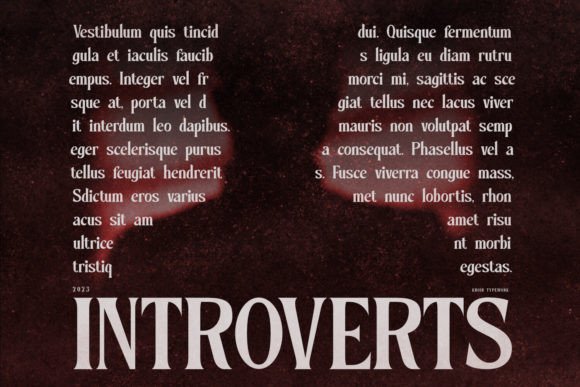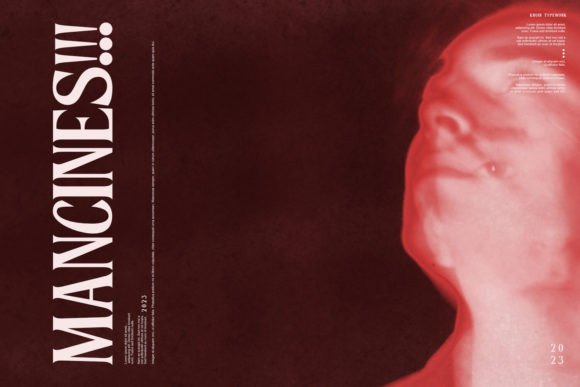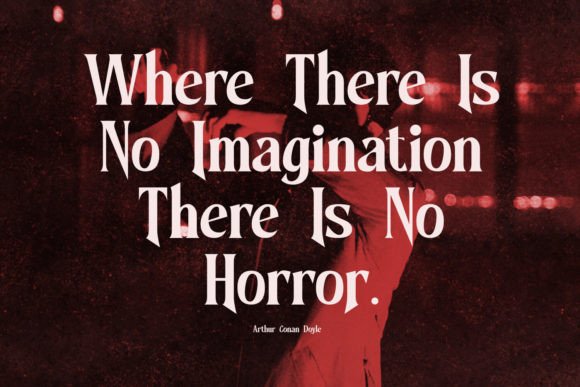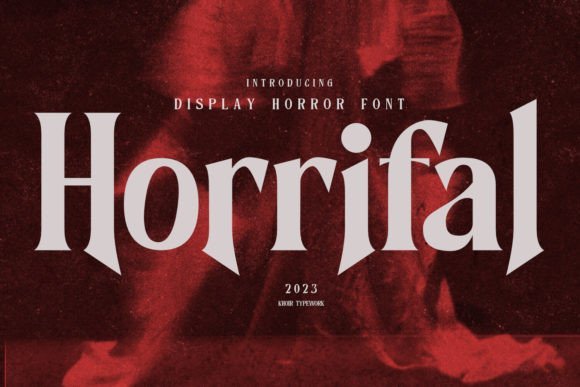
Introduction to Horrifal Font
Horrifal is an incredibly unique display font.
Masterfully designed to become a true favorite, this font has the potential to bring each of your creative ideas to the highest level .
Key Features of Horrifal Font
Why Choose Horrifal Font?
Horrifal Font offers exceptional quality and versatility, making it a valuable addition to your design toolkit. Whether you’re creating for personal projects or commercial use, Horrifal Font delivers professional results.